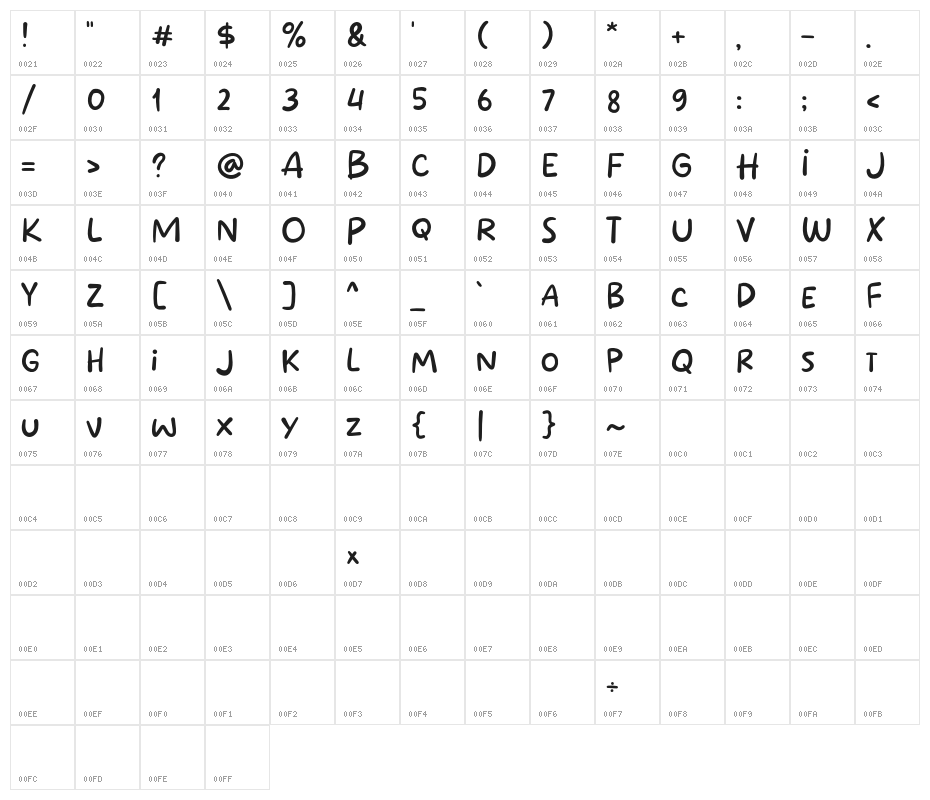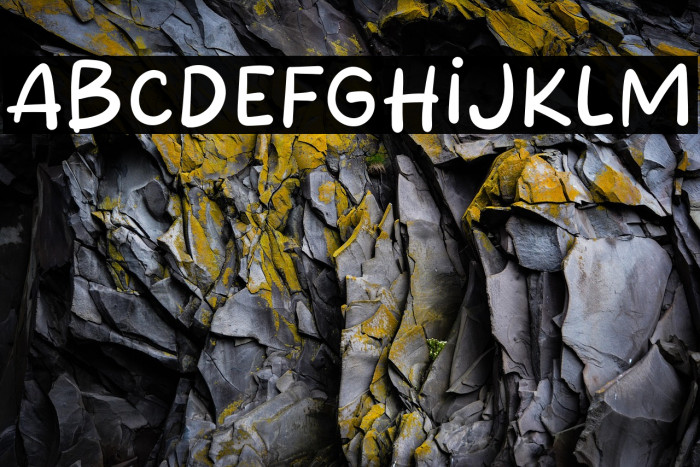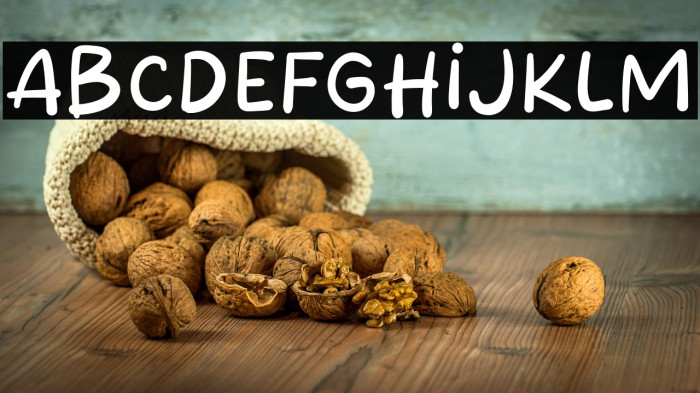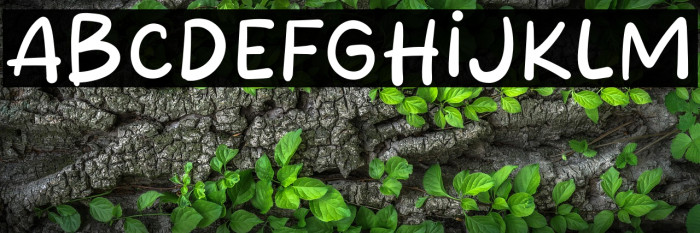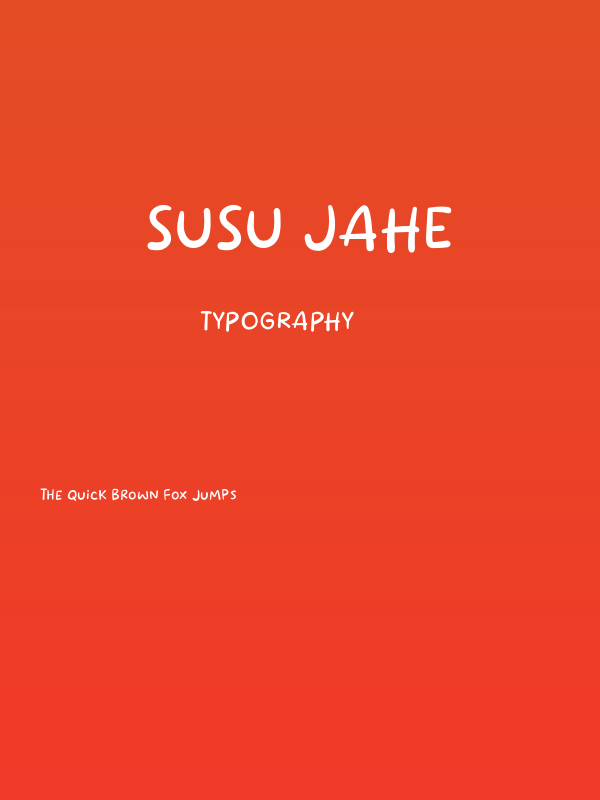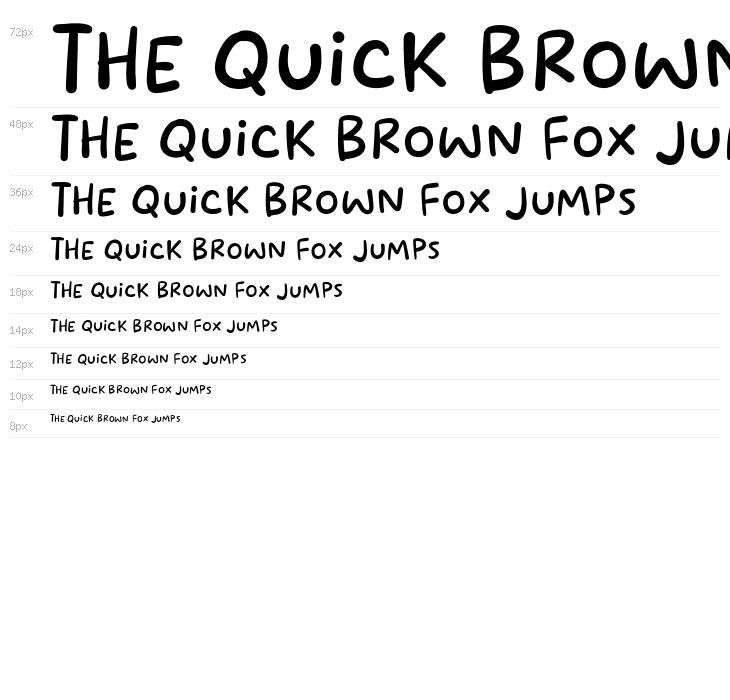
Susu Jahe Font
Susu Jahe Description
This font features a playful and casual handwritten style, characterized by its rounded and slightly irregular letterforms. The strokes are consistent in thickness, giving it a uniform appearance while maintaining a friendly and approachable feel. The characters are well-spaced, ensuring readability, and the overall design exudes a sense of informality and warmth. The numerals and special characters are crafted to match the whimsical nature of the letters, making it suitable for projects that require a personal touch.
Overall StyleCasual
Use CaseHeadlines, Informal text, Branding
Proposed ProjectsIdeal for children's books, greeting cards, informal invitations, and playful branding.